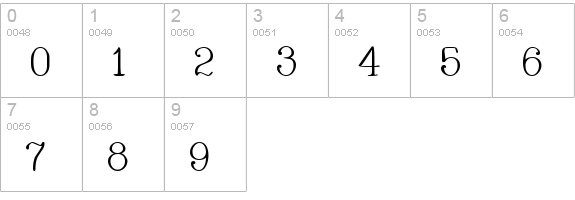
Whackadoo Upper Font Details
Introducing Whackadoo Upper, a whimsical and playful font that will add a touch of creativity and excitement to any project. With its unique and eye-catching design, Whackadoo Upper is perfect for those who want to make a bold statement. This font features uppercase letters that are beautifully crafted with a quirky and offbeat style. Each letter is filled with personality, making it a great choice for logos, headlines, posters, and more. Whackadoo Upper is sure to capture attention and leave a lasting impression. The best part? Whackadoo Upper is absolutely free! That's right, this amazing font is freely available to download at FontsMarket.com. So whether you're a professional designer, a student working on a school project, or simply someone who enjoys experimenting with different fonts, Whackadoo Upper is the perfect choice. Don't miss out on the opportunity to add a touch of fun and creativity to your designs. Download Whackadoo Upper today and let your imagination run wild. Get ready to make a statement with this free and captivating font.